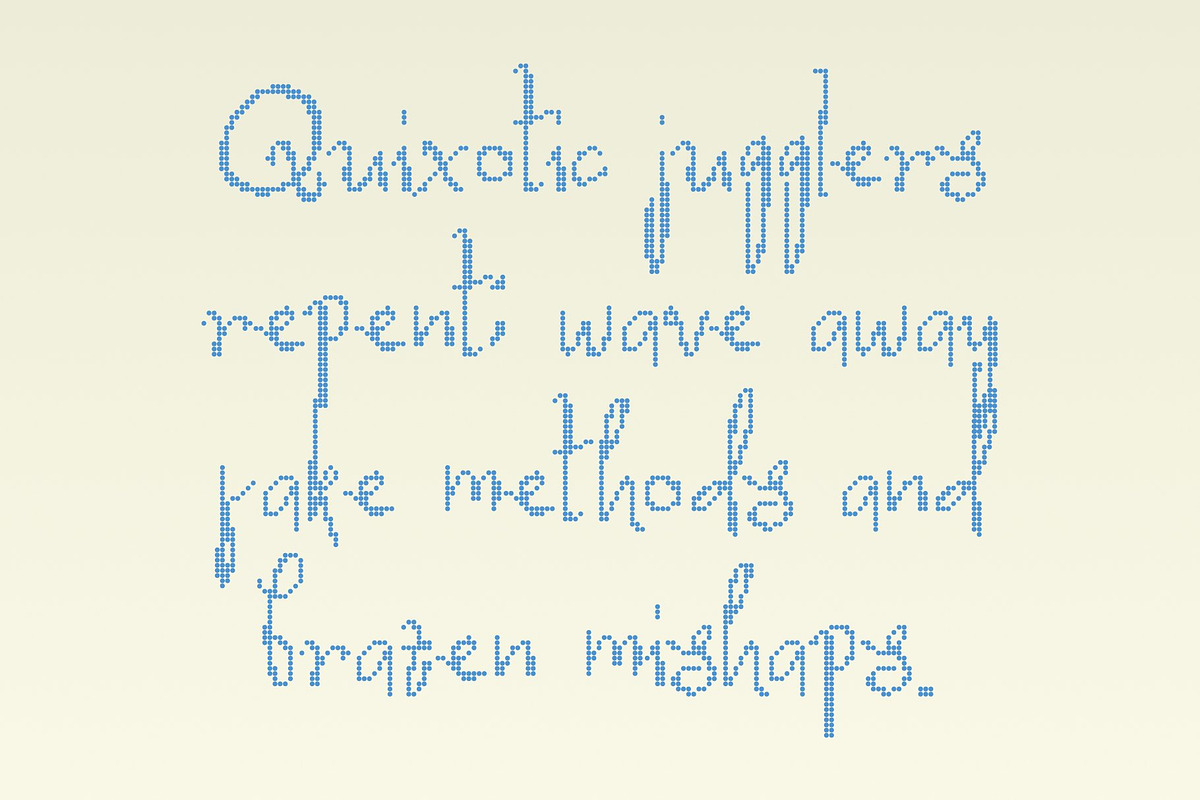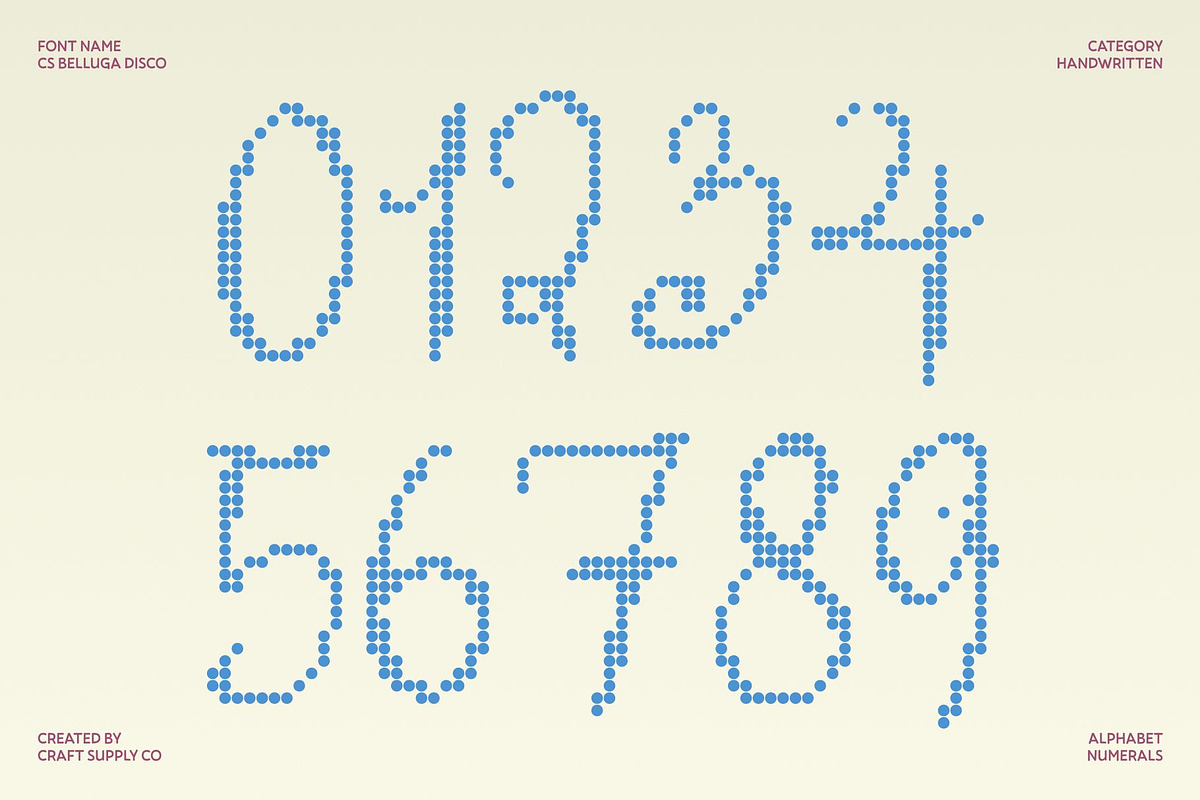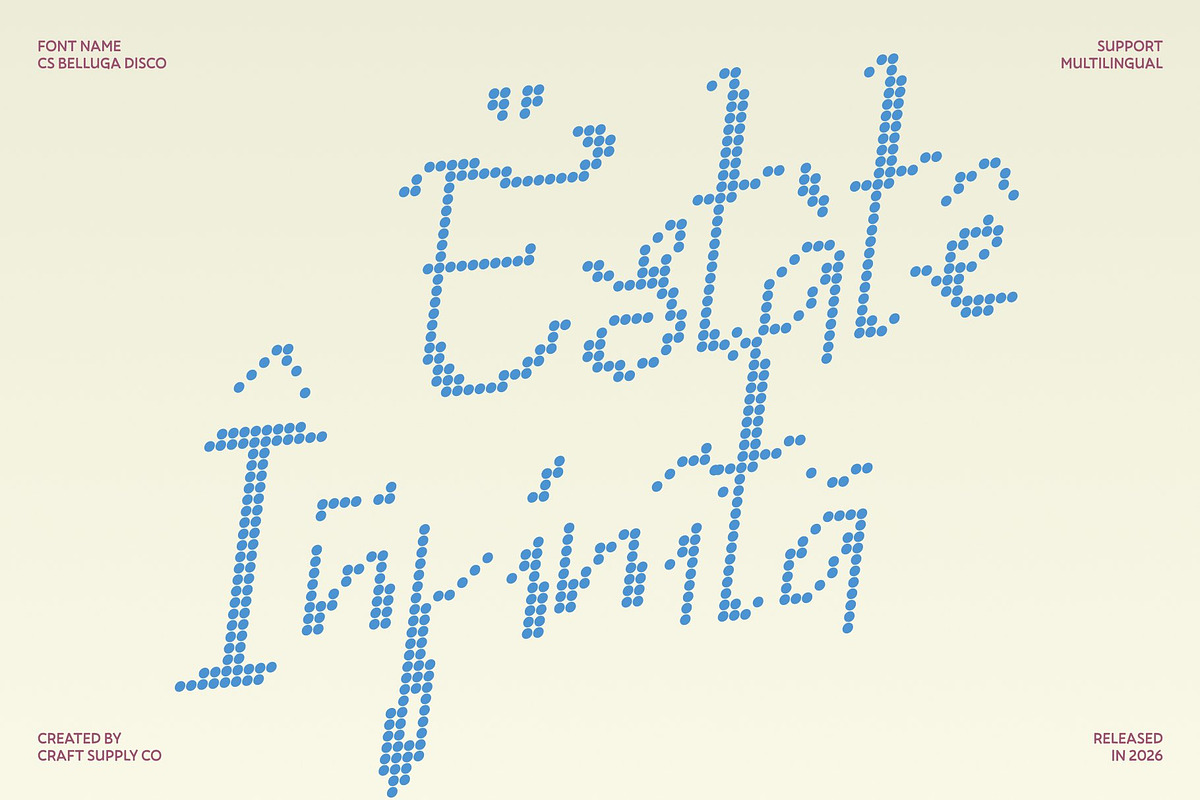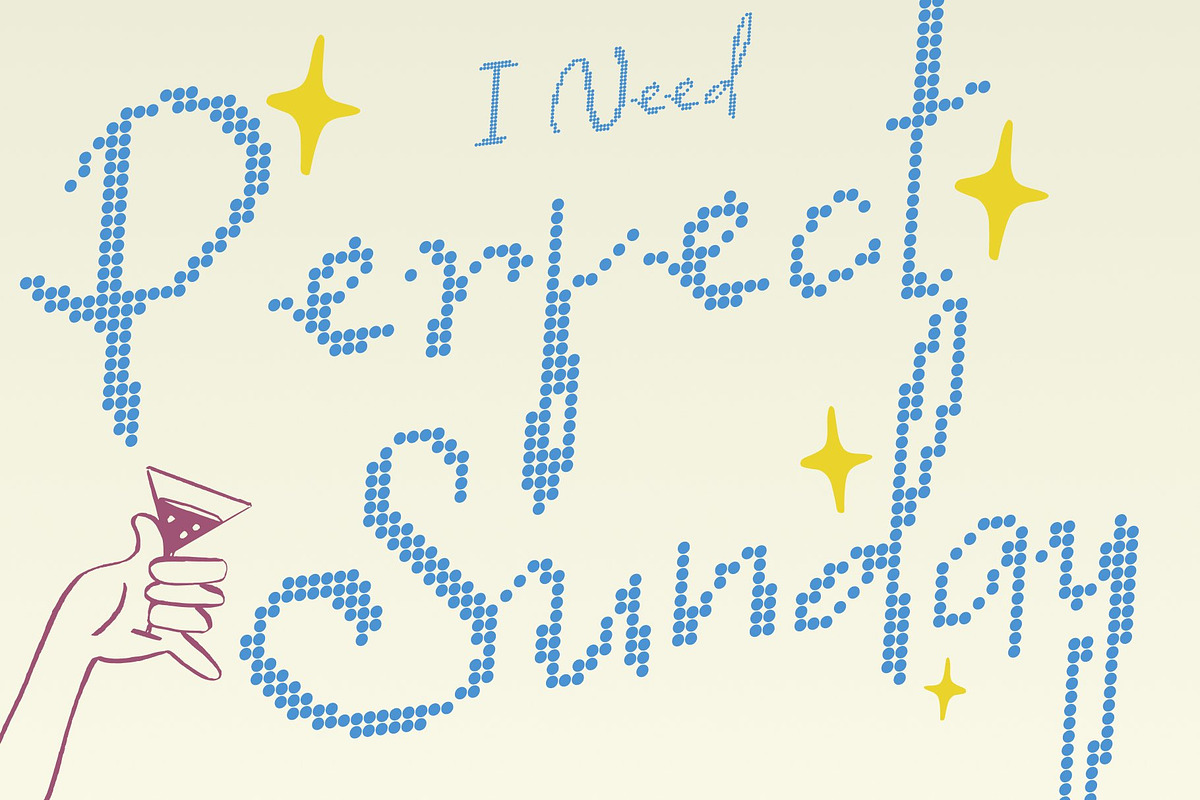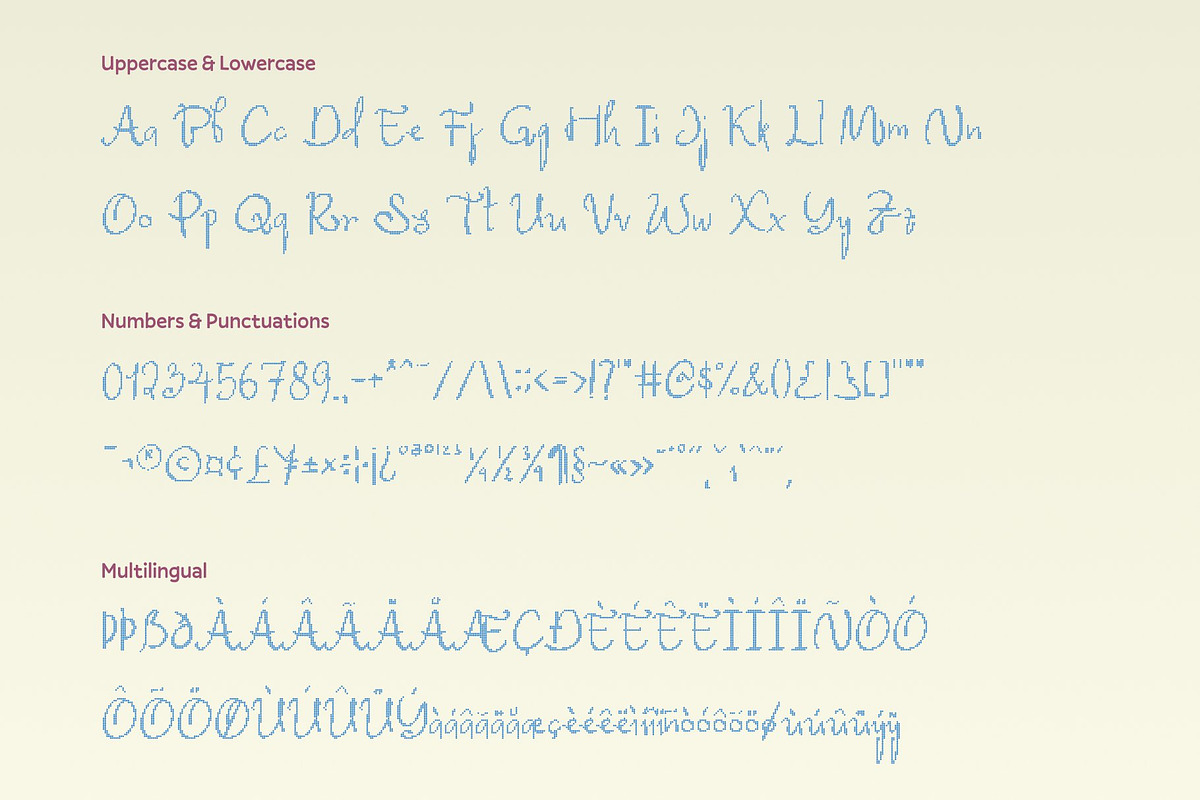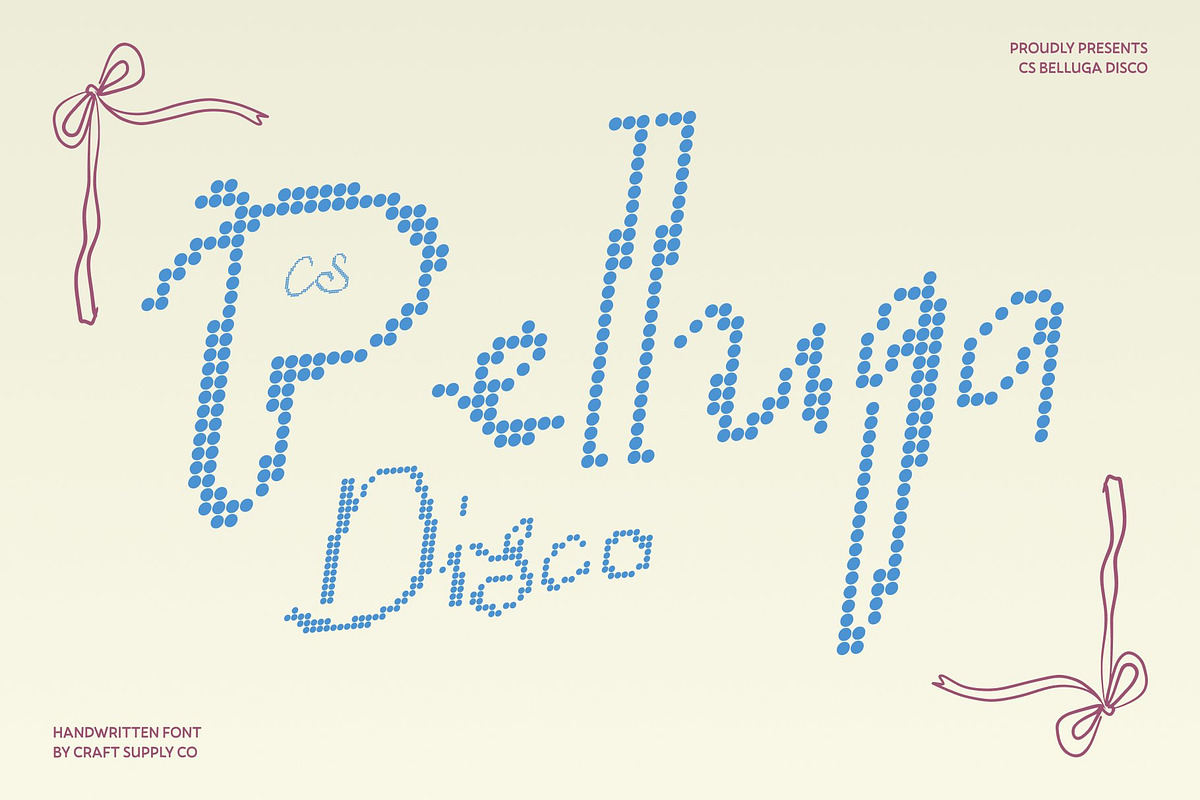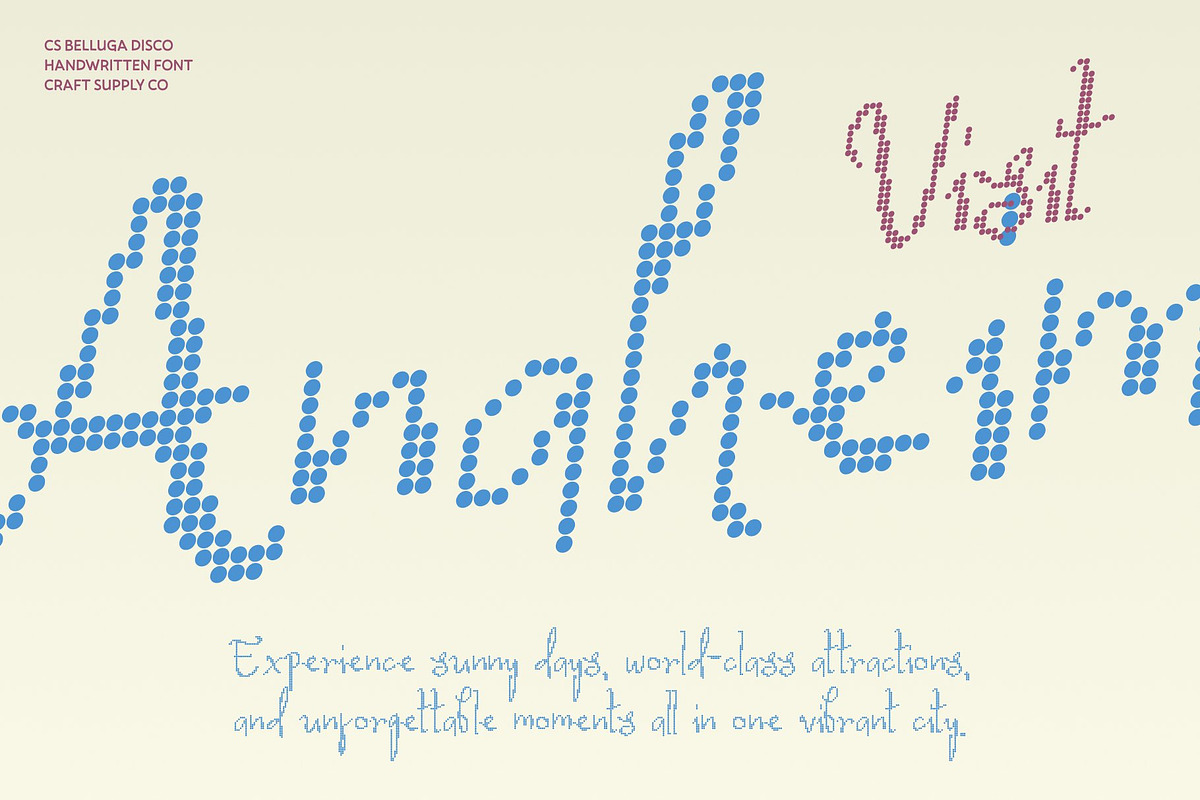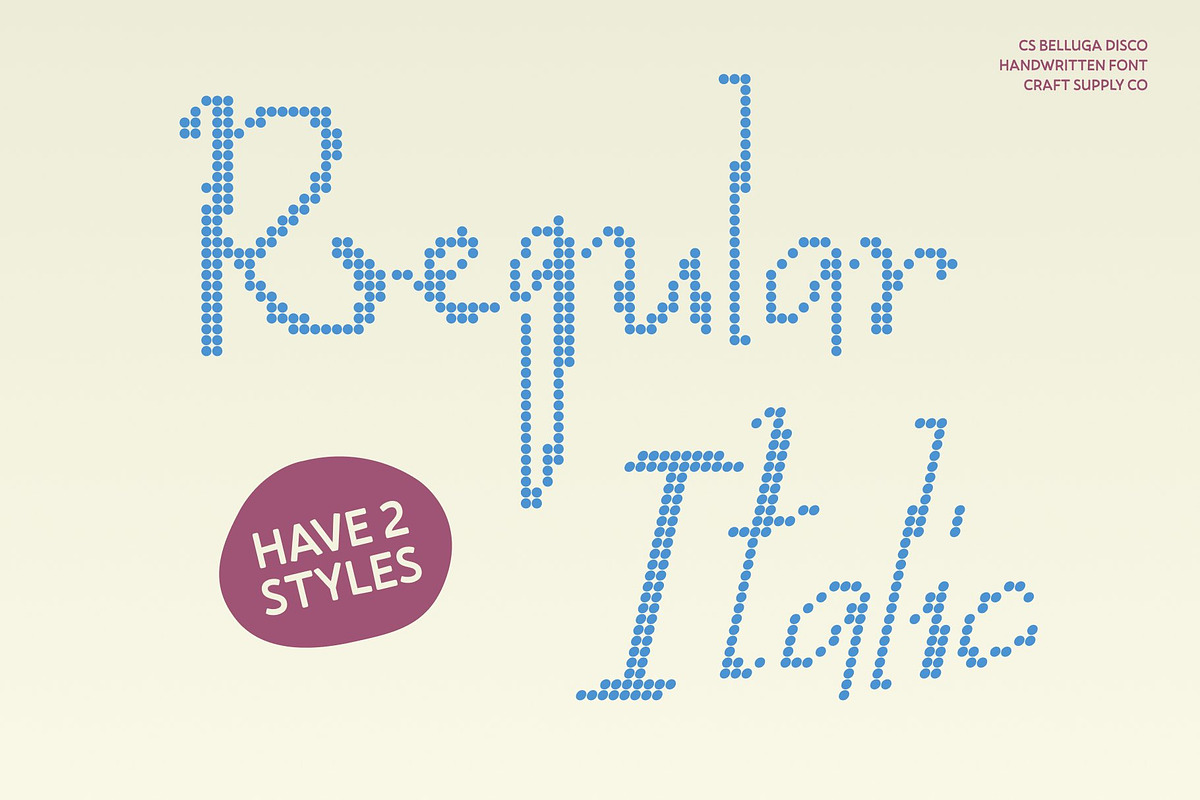
CS Belluga Disco
CS Belluga Disco – Whimsical Beauty with a Playful Heart
Handwritten Whimsy with Lively Disco Movement This is a graceful handwritten font that dances with playful curves and imaginative forms, infused with a subtle disco sparkle. Each letter flows with expressive motion, creating a joyful rhythm that feels romantic, creative, and full of life. Its lively personality brings warmth and fantasy into every composition.
Playful Curves with Radiant Expression Every stroke is designed to feel fluid and animated. Gentle swirls and flowing lines create a natural handwritten rhythm, while a cheerful energy adds brightness and charm. The result is typography that feels inviting, affectionate, and delightfully expressive perfect for designs that celebrate love and happiness.
Whimsical Character with Stylish Balance The imaginative letterforms combine organic movement with thoughtful structure, giving the font a unique balance between fun and refinement. It feels artistic yet controlled, playful yet elegant making it versatile for both romantic themes and stylish creative layouts.
Perfect for Romantic, Festive, and Joyful Designs From wedding stationery and party invitations to beauty branding and heartfelt quotes, brings artistry and celebration to every project. Its blend of elegance and playful charm ensures each word feels personal, lively, and full of radiant personality.